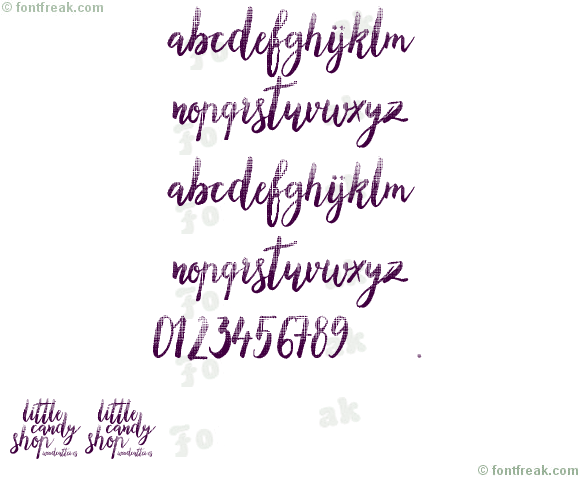
Little Candy Shop
About Little Candy Shop
The Little Candy Shop font by woodcutter Manero is a delightful display typeface that captures the essence of whimsy and playfulness. This decorative font features a handwritten style, characterized by its inviting curves and lively strokes. The varying stroke weight adds a sense of dynamism, while the overall design maintains a light and airy feel. The letters exhibit a certain fluidity, with elegant loops and swirls that enhance its charm. The spacing between characters is thoughtfully designed, allowing for easy readability while still retaining a playful aesthetic.
This font is perfect for a variety of applications. It excels in creating eye-catching wedding invitations, where its romantic flair adds a personal touch. Additionally, Little Candy Shop is an excellent choice for designing vibrant restaurant menus that seek to convey a fun and friendly atmosphere. It can also be effectively used in children’s book covers or playful branding materials, making it a versatile option for creative projects. Graphic designers, small business owners, and content creators will find this typeface particularly appealing for their unique projects.